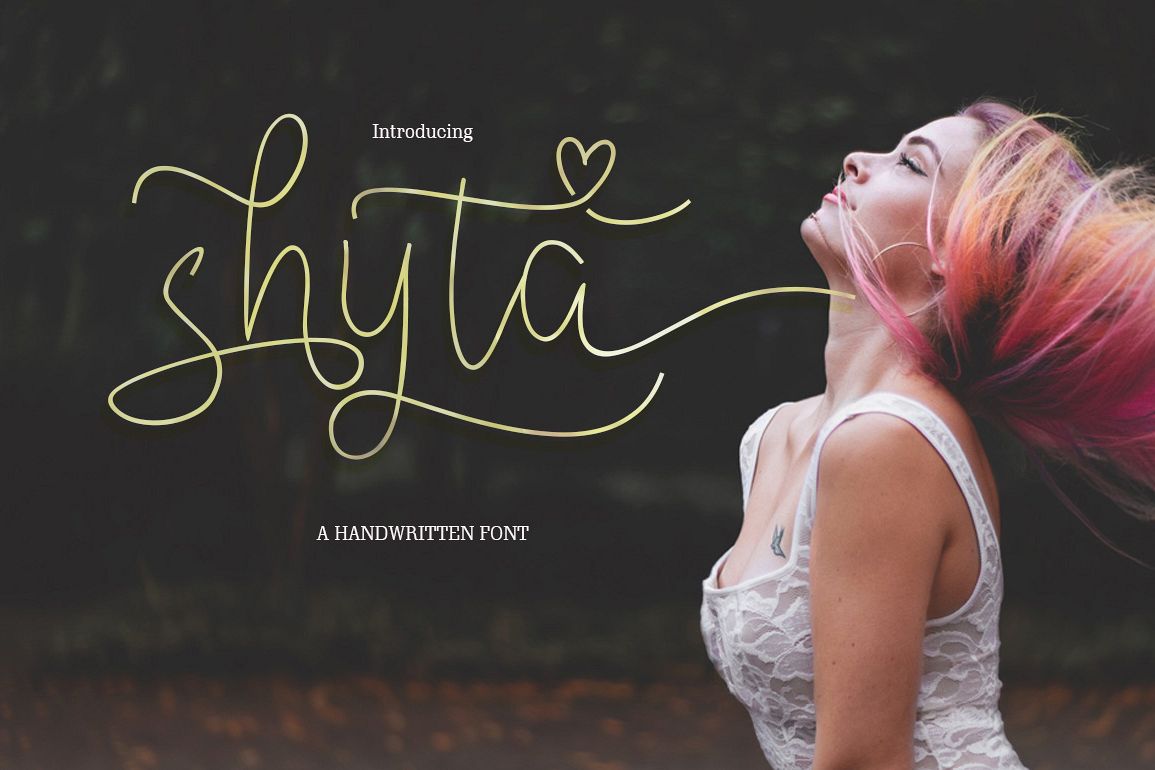
Shyta Script is handwritten stylish copperplate calligraphy fonts, combines from copperplate to contemporary typeface with a dancing baseline, classic and elegant touch. Can be used for various purposes.such as headings, signature, logos, wedding invitation, t-shirt, letterhead, signage, lable, news, posters, badges etc. Introducing ScriptShyta Script a new fresh & modern script with a handmade calligraphy style, decorative characters and a dancing baseline! So beautiful on invitation like greeting cards, branding materials, business cards, quotes, posters, and more!! Shyta Script come with 364 glyphs. The alternative characters were divided into several Open Type features such as Swash, Stylistic Sets, Stylistic Alternates, Contextual Alternates. The Open Type features can be accessed by using Open Type savvy programs such as Adobe Illustrator, Adobe InDesign, Adobe Photoshop Corel Draw X version, And Microsoft Word. And this Font has given PUA unicode (specially coded fonts). so that all the alternate characters can easily be accessed in full by a craftsman or designer. Shyta Script : Uppercase & Lowercase International Languange & Symbols Support Punctuation & Number PUA Unicode Range Standard Stylistic Alternates Stylistic Set 1-13 Character Variant Contextual. The ZIP file are include the following : Shyta Script.OTF Shyta Script.TTF Shyta Script.Web Font (eot, svg, woff, woff2) If you don't have a program that supports OpenType features such as Adobe Illustrator and CorelDraw X Versions, you can access all the alternate glyphs using Font Book (Mac) or Character Map (Windows). To Access Alternate Characters Click The Link Below:How to access alternates in Adobe illustrator CS https://www.youtube.com/watch?v=geL0Ye02Ryk ;;; How to access alternates in Adobe illustrator CC https://www.youtube.com/watch?v=V25yiUh8BcE How to access alternates in Ms Word https://www.youtube.com/watch?v=HxkhZiCuwEw How to access alternates in Coreldraw https://www.youtube.com/watch?v=UBVsufJjons" >X7 https://www.youtube.com/watch?v=UBVsufJjons How to access alternates in Adobe Photoshop CC https://www.youtube.com/watch?v=BYKXl58AdNY ;;; How to access alternates in Indesign CS https://www.youtube.com/watch?v=HgZTCxKG14Q Thanks and happy designing :-)Thank You for purchase!